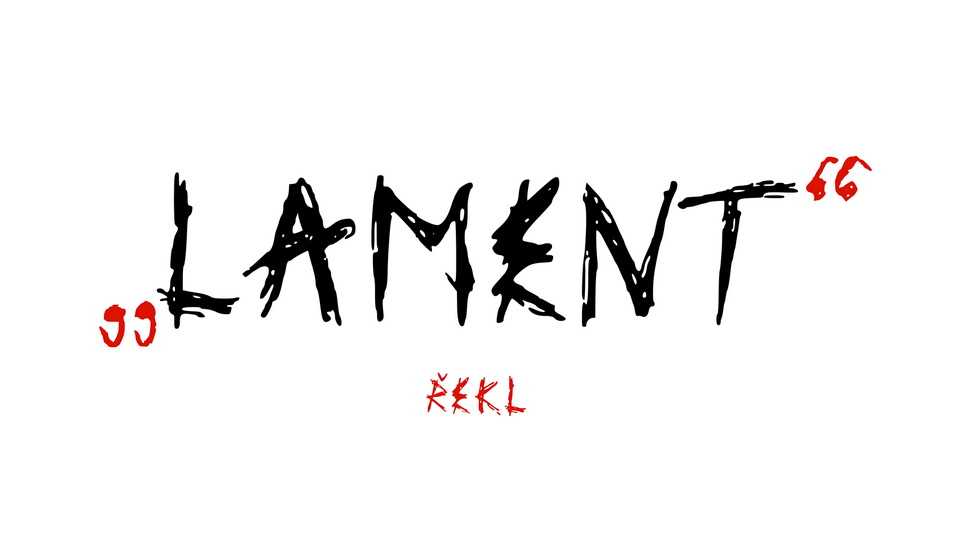
Download Lament font, a rough and scratchy handmade typeface painted with a stress. Lament font works very well in posters and album artworks, but also looks great on clothing and packaging.
Designer: Vojtěch Benc